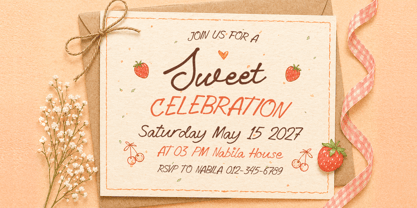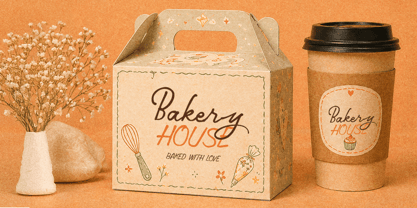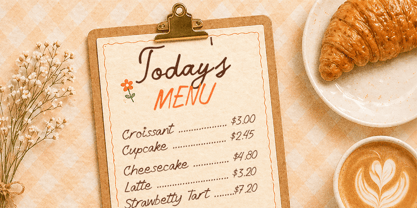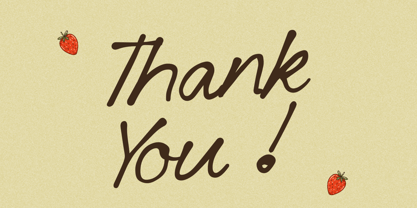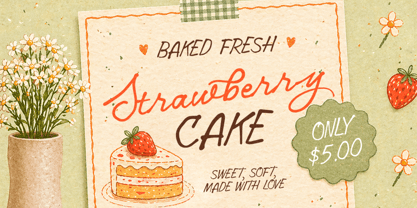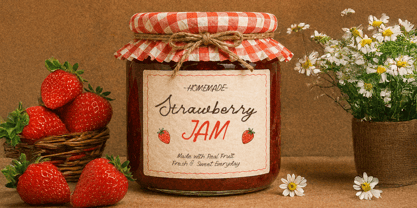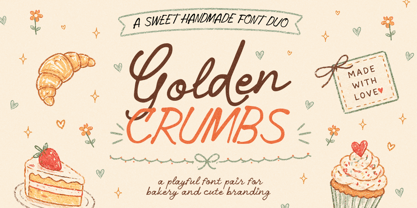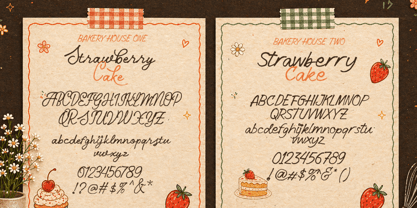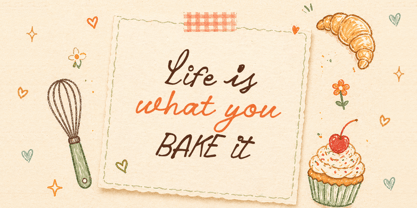
Golden Crumbs
by Littlehand
The Golden Crumbs Font Family was designed by Aryo Pamungkas and published by Littlehand. Golden Crumbs contains 2 styles and family package options. More about this family
Golden Crumbs comes in warm and delightful, mixing a soft handwritten script with a playful sans that feels like fresh treats straight out of the oven. It carries a cozy, cute vibe with a hint of vintage charm, making it just right for bakery logos, packaging, menus, and branding that want to feel friendly, tasty, and full of joy. Lighthearted and easy to use, this duo sprinkles a bit of happiness into every design.
Features :
• Uppercase & lowercase
• Numbers and punctuation
• Alternates & Ligatures
• Multilingual Support